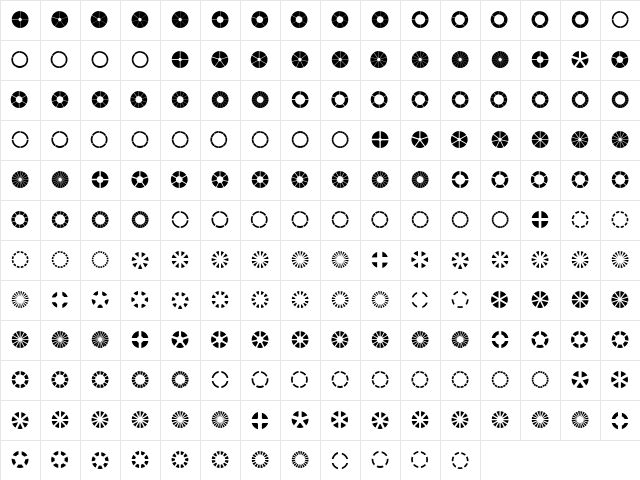
Matonomannaka Regular
Design Context for Matonomannaka Typeface
Matonomannaka is a composed and adaptable typeface that performs quietly and consistently across a wide range of design contexts.